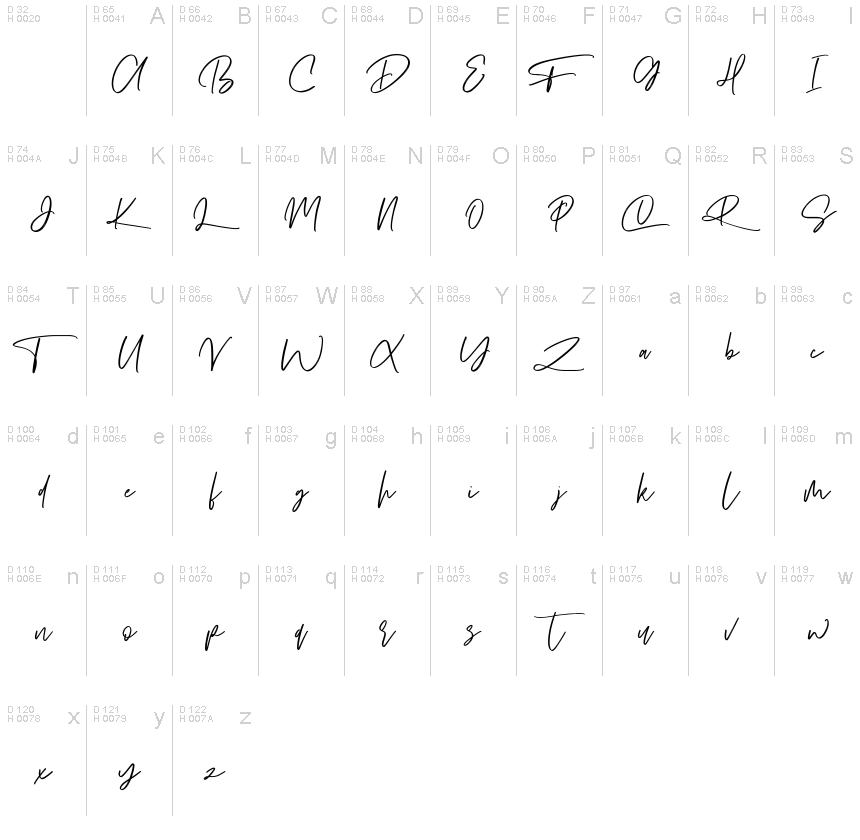
Slovary Free Regular
Slovary is a signature font designed by Maulana Creative with elegant cursive lines and flowing letters. This free font conveys smooth letter connections and dynamic high contrast, making it ideal for projects that require a script-like look. It is playful and casual, yet elegant and stylish.
Slovary suits branding designs with logos in the food industry such as restaurants and catering services. Use it along with other fonts to combine its mesmerizing characters on magazine covers, advertisements, greeting cards, invitations, or any other project where you want to leave a magical impression on readers. Let Slovary font be part of your next creation; you certainly won’t regret it!